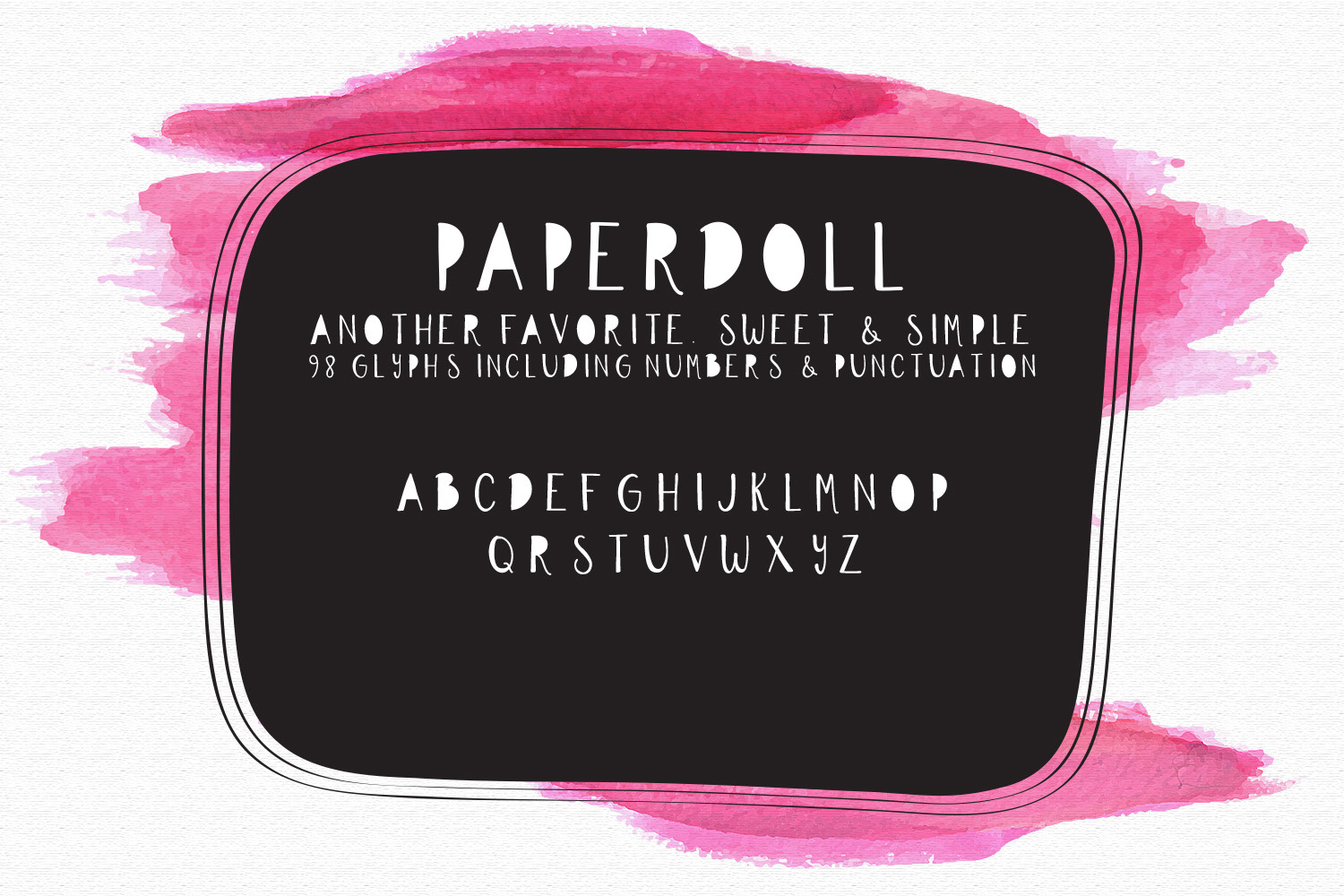
Paper Doll Handlettered Typeface
Paperdoll is a quirky all caps font with some of the letters filled completely in to give it that hand drawn quality that seems to be all the rage these days!